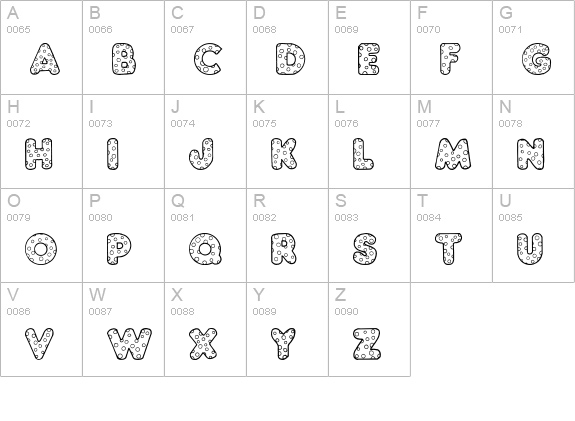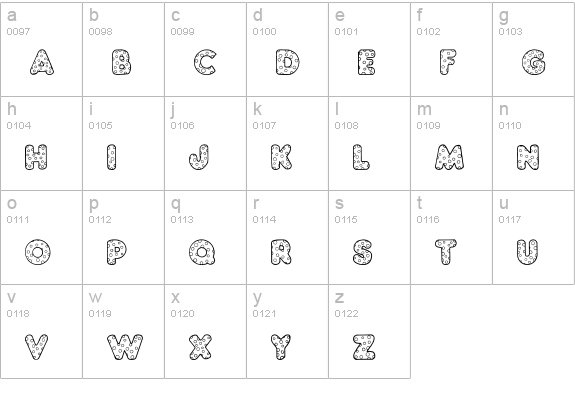
Chubby Dotty Font Details
Chubby Dotty font is a whimsical and playful typeface that exudes charm and character. Its rounded shapes and dotted elements give it a friendly and inviting feel, making it perfect for a variety of projects that need a touch of fun and creativity. This unique font is available for free download at FontsMarket.com, allowing you to easily add a touch of personality to your designs without any cost. Whether you're creating greeting cards, posters, or social media graphics, Chubby Dotty font is sure to make your text stand out and bring a smile to your audience's face. Unlock the potential of this delightful font and let your creativity shine with Chubby Dotty!